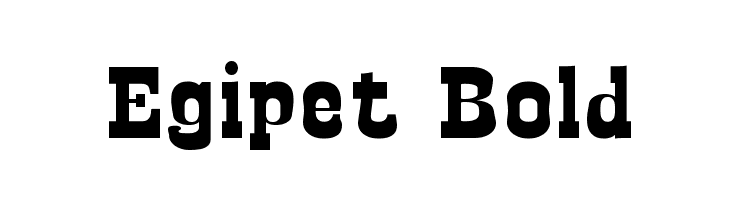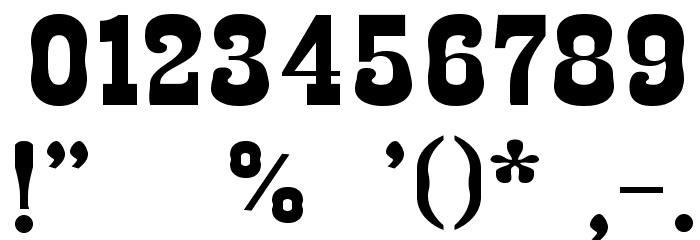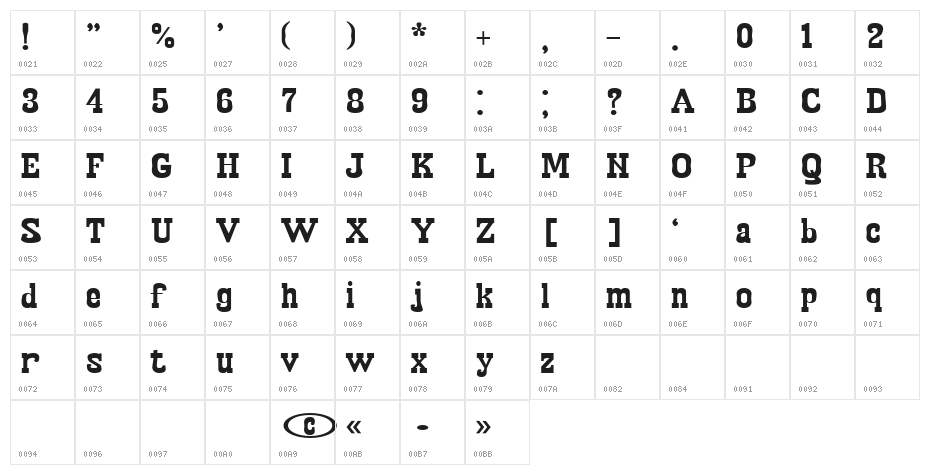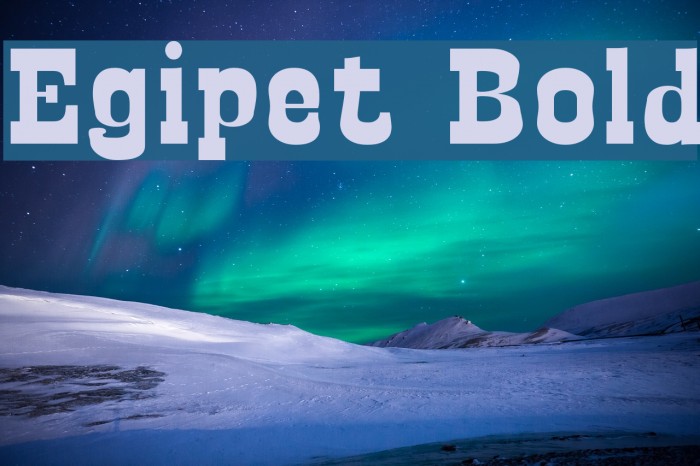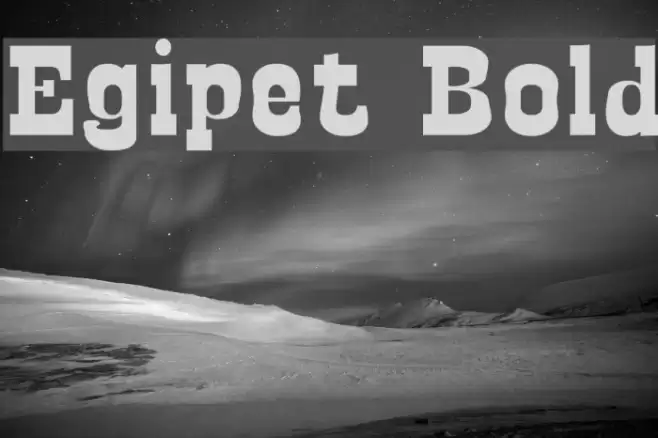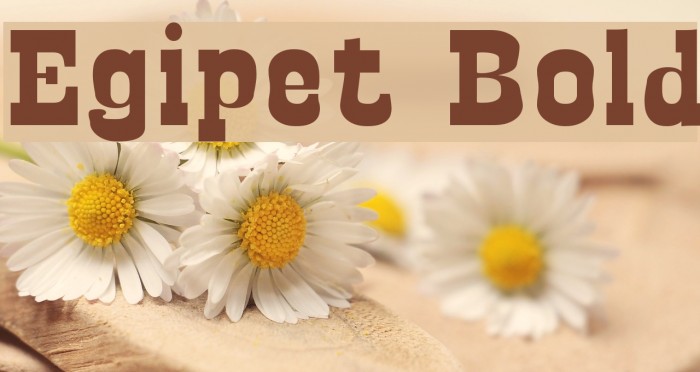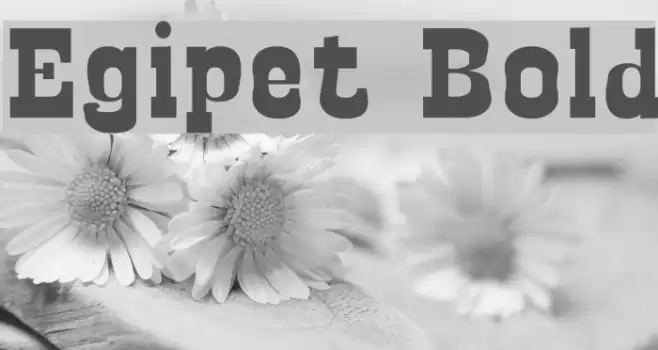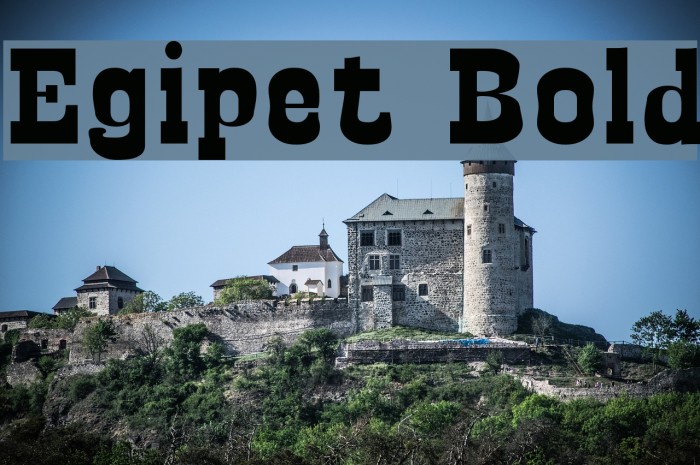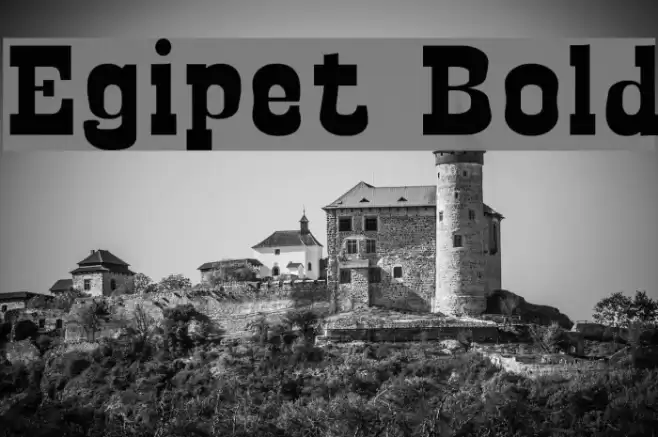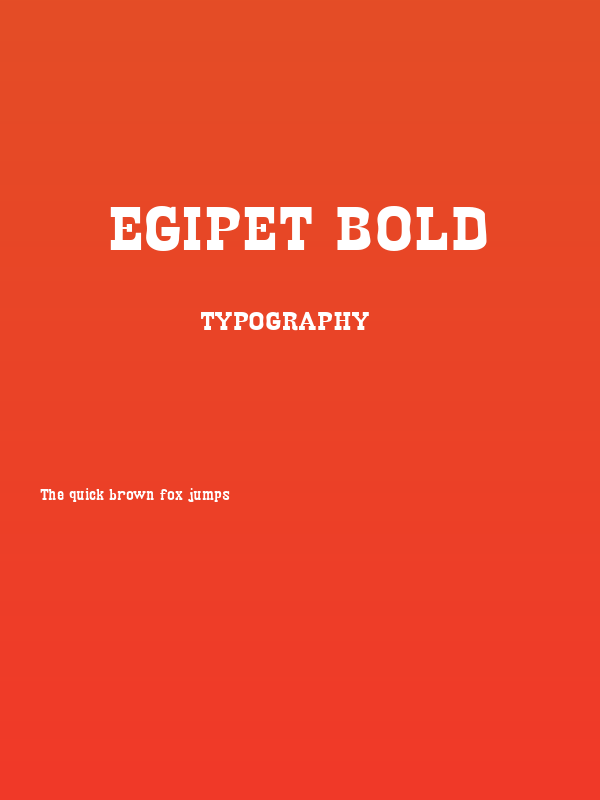
Egipet Bold Font
Egipet Bold Description
This font features a bold and robust design with thick, block-like serifs that give it a strong and authoritative presence. The characters are evenly spaced, providing a balanced and structured appearance. The uppercase letters are particularly striking, with a commanding presence that makes them ideal for headlines or titles. The lowercase letters maintain the same boldness, ensuring consistency throughout the text. The numerals are clear and distinct, making them easily readable. Special characters are included, adding versatility to the font's applications. Overall, this font exudes a classic yet modern feel, suitable for various design projects.
| Proposed Projects | Ideal for headlines, posters, branding, and any project requiring a bold statement. |